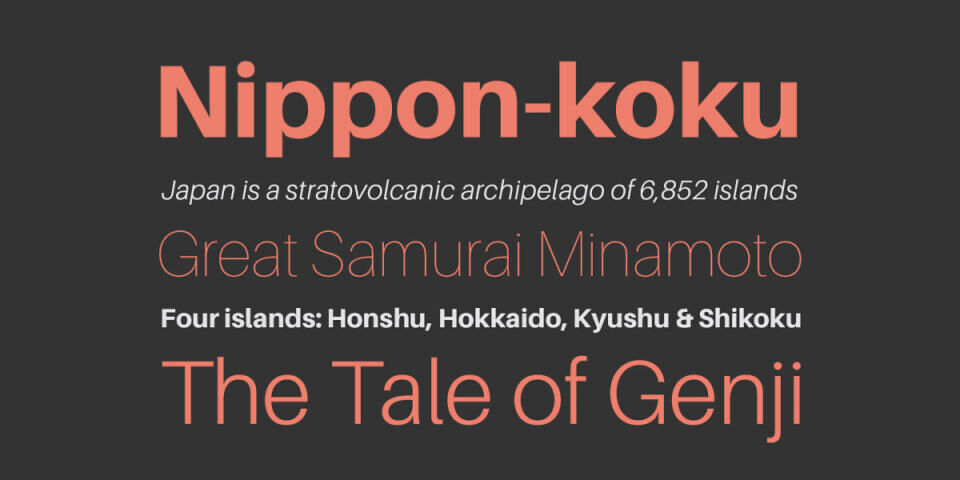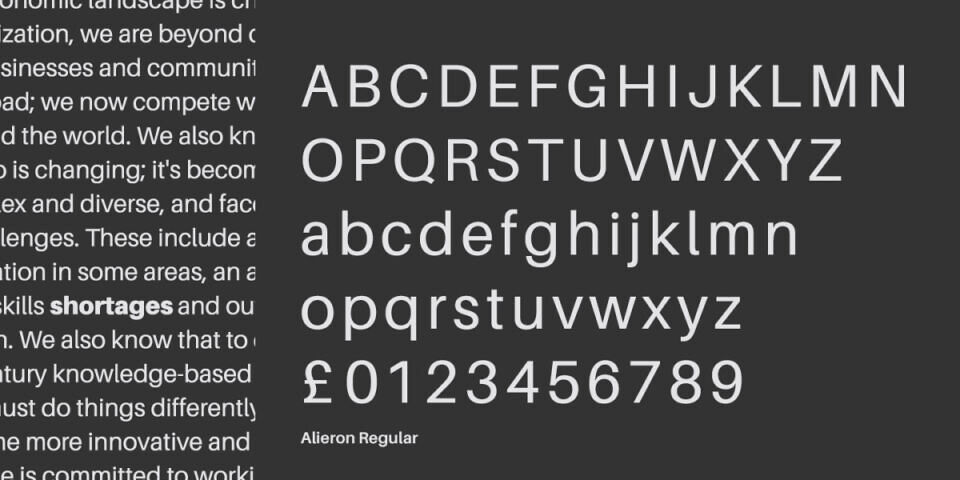
Aileron is a sleek, modern sans-serif typeface inspired by the minimalist aesthetics of the 1930s. Designed by Sora Sagano, it features clean lines, geometric shapes, and a balanced structure, making it versatile for both print and digital applications.
Available in 16 weights, from UltraLight to Black, Aileron offers flexibility for headings, body text, and branding. Its open, rounded forms enhance readability, while its subtle elegance suits professional and creative projects.